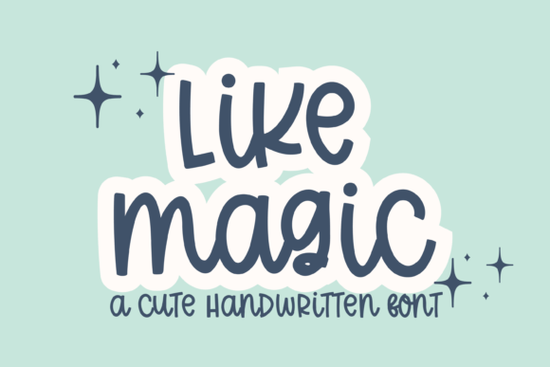
If you’ve been searching for a friendly, easy-to-use handwritten script that feels personal without being fussy, the Like Magic Font might be exactly what your next craft or design project needs. Designed with makers in mind especially Cricut users it blends charm and legibility in a way that works beautifully on greeting cards, gift tags, wall art, and even digital planners.
Unlike overly ornate scripts that can be tricky to read or cut cleanly on vinyl machines, Like Magic keeps its letterforms open and flowing while staying grounded in everyday handwriting. That balance makes it especially useful if you’re creating items for small businesses, personalized gifts, or printable downloads. It’s also compatible with popular creative apps like Goodnotes and Procreate, so whether you're working digitally or physically, the font travels well across platforms.
What makes this script font stand out for crafters?
Handwritten fonts are everywhere these days but not all of them cut (literally) as cleanly or look as natural as they should. Like Magic avoids common pitfalls like tangled loops or inconsistent stroke weights. Instead, it offers:
- A relaxed, organic rhythm that mimics real pen-on-paper writing
- Clear spacing between letters, which helps with readability and cutting accuracy
- Broad compatibility with SVG files, making it ideal for Cricut Design Space users
- Smooth performance in both print and digital formats
For print-on-demand sellers or Etsy shop owners, those details matter. A font that looks great in a mockup but fails when printed or worse, jams your cutting machine isn’t worth the download. Like Magic sidesteps those issues by prioritizing function alongside form.
How does it compare to other cute script fonts?
If you already use playful scripts like Rainy Winter or Milkshake, you’ll notice Like Magic lands somewhere in between: less bubbly than Milkshake, but warmer and more casual than Rainy Winter’s minimalist single-line style. It’s also more versatile than brush-style options like Paint Brush Script, which leans heavily into texture and painterly effects.
Compared to dessert-inspired picks like Strawberry Chesscake, Like Magic tones down the whimsy just enough to feel appropriate for a wider range of projects from baby shower invites to teacher appreciation cards. And while elegant choices like Sophia shine in formal settings, Like Magic excels where approachability matters most.
Who should use this font?
This script works best for creators who want their work to feel handmade but not messy. Think:
- Cricut crafters making vinyl decals, tote bags, or mugs
- Digital planners looking for a natural note-taking style in Goodnotes
- Small business owners designing social graphics or product labels
- Printable designers creating quote cards, recipe templates, or kids’ activity sheets
It’s not the right pick if you need something ultra-formal (like wedding invitations with traditional calligraphy) or highly stylized (like logo work requiring custom lettering). But for everyday creativity with heart? It delivers.
Tips for getting the best results
To make the most of Like Magic:
- Pair it with clean sans-serifs. A simple font like Montserrat or Lato gives your layout breathing room.
- Avoid tight kerning. The natural spacing is part of its charm don’t squeeze letters together.
- Test cuts before committing. If using with Cricut, do a small test run to ensure smooth weeding.
- Use it at medium to large sizes. Below 18pt, some details may blur in print.